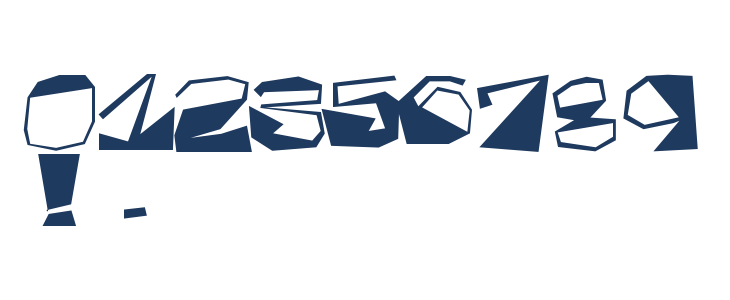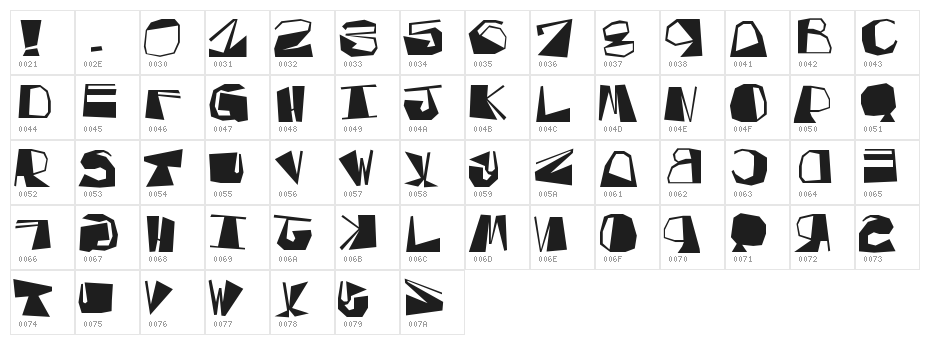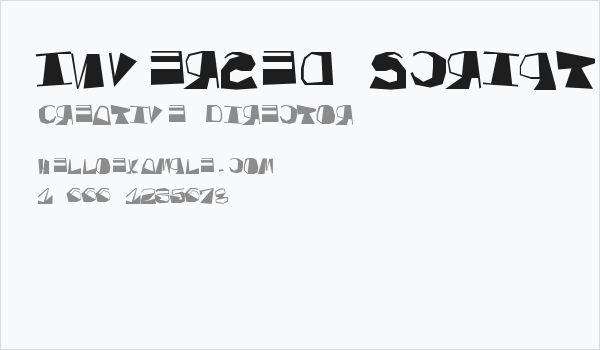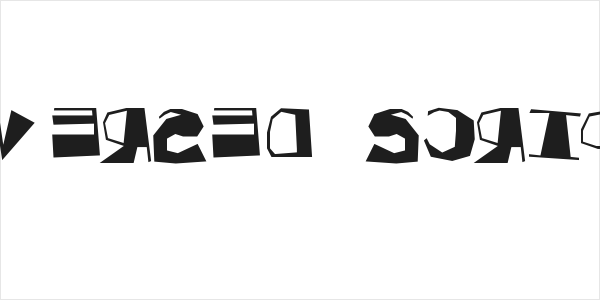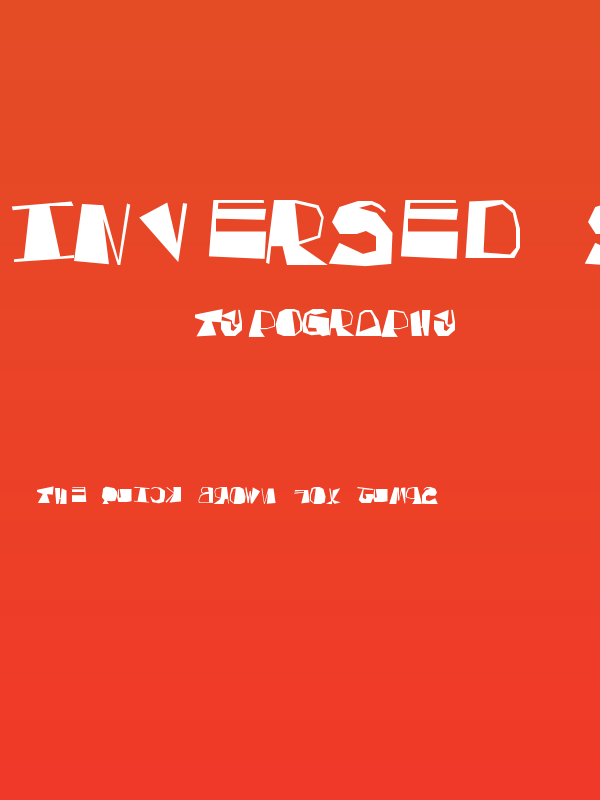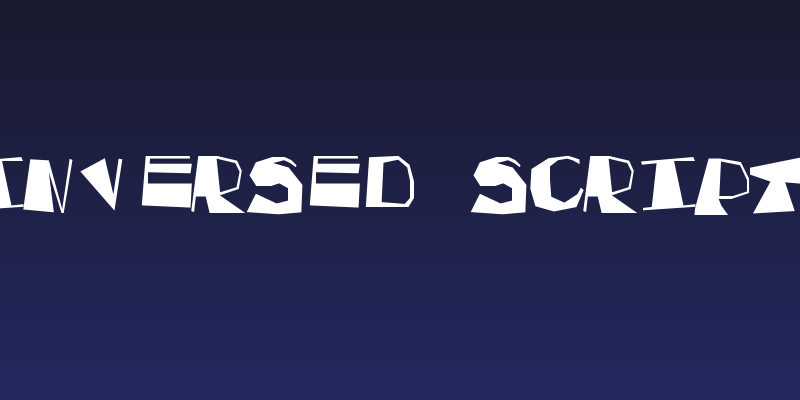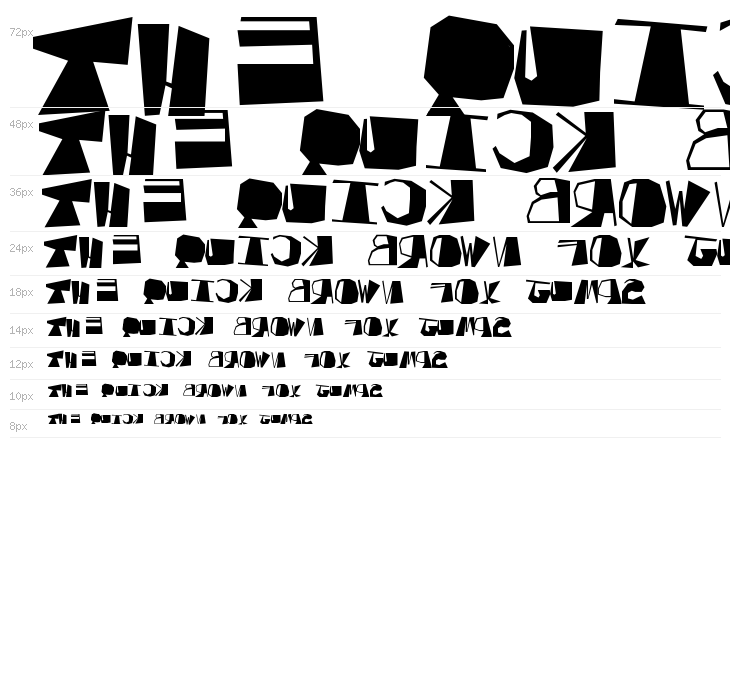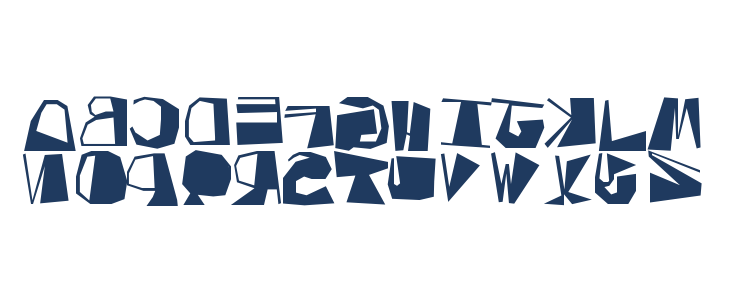
Inversed Script Font
Inversed Script Description
This font features a bold and dynamic style with an angular, geometric design. Each character is crafted with sharp edges and irregular shapes, creating a sense of movement and energy. The uppercase and lowercase letters maintain a consistent theme, with each character appearing as if it has been carved from a solid block. The numbers and special characters follow the same aesthetic, ensuring uniformity across all elements. This font's unique style makes it stand out, ideal for projects that require a strong visual impact.
| Proposed Projects | Ideal for posters, album covers, video game graphics, and any project needing a bold, eye-catching typeface. |